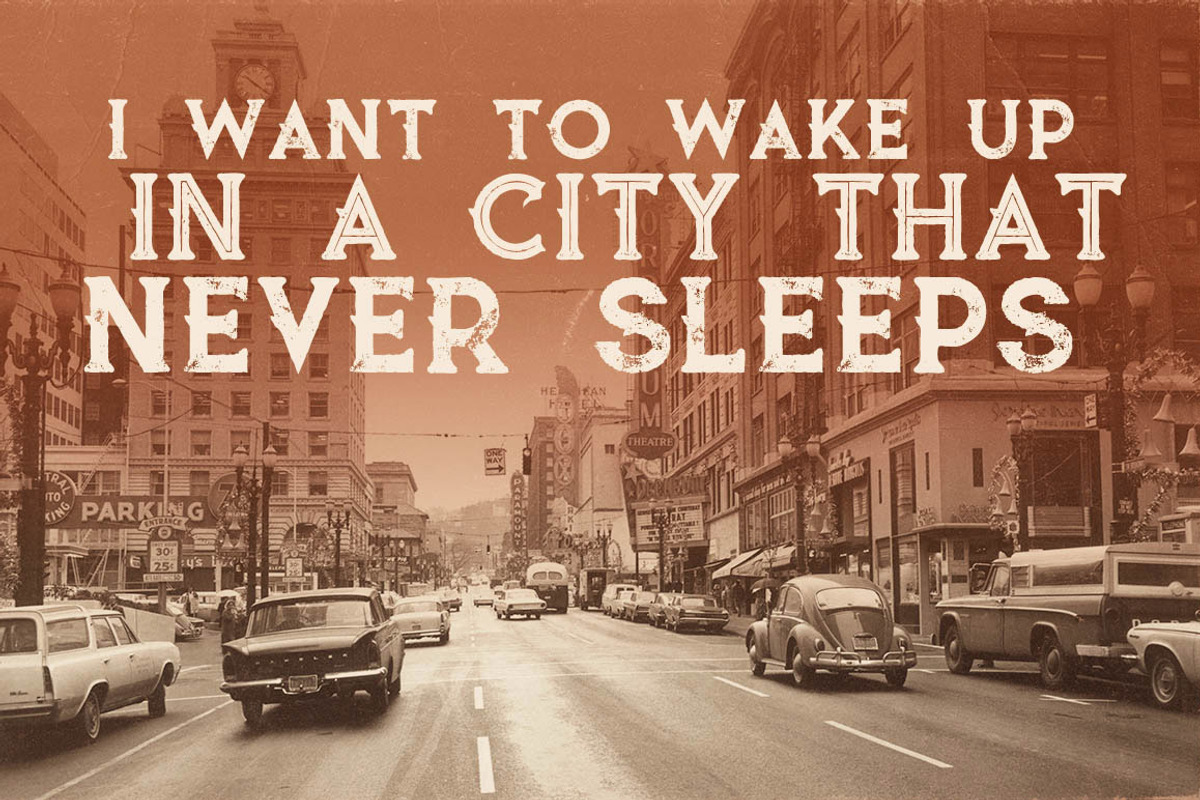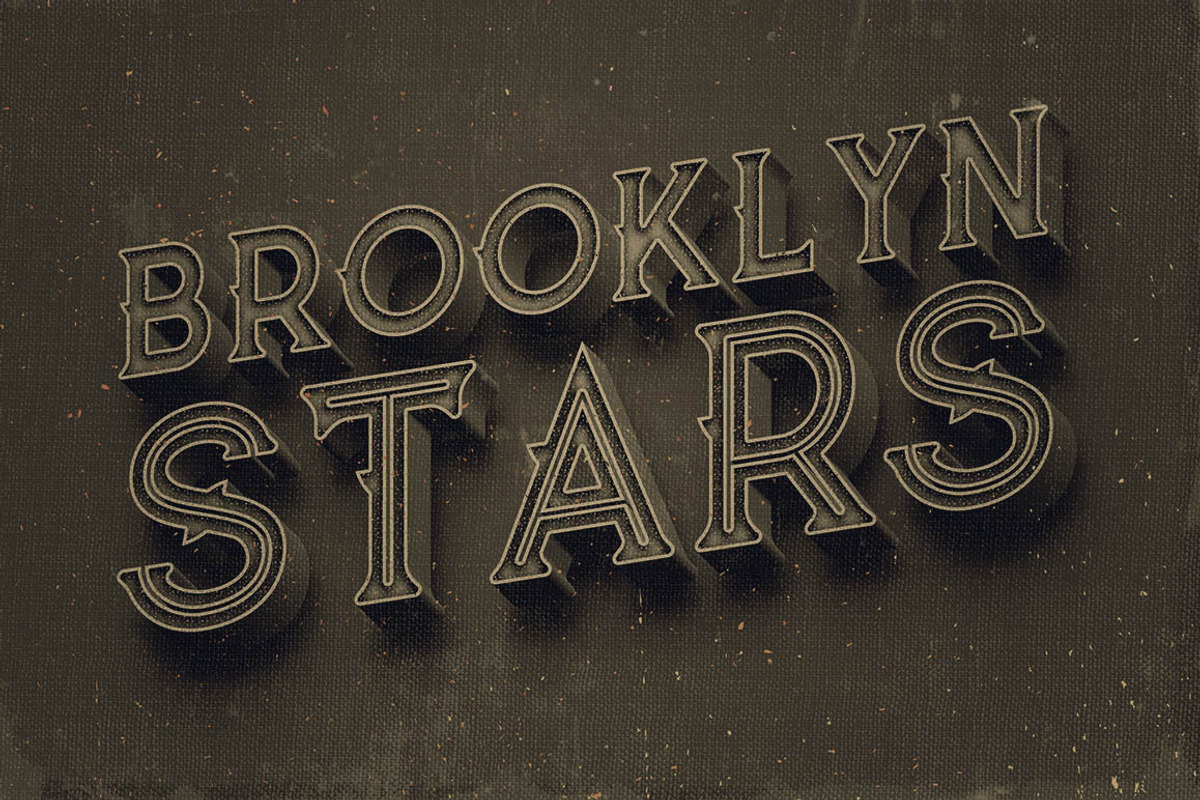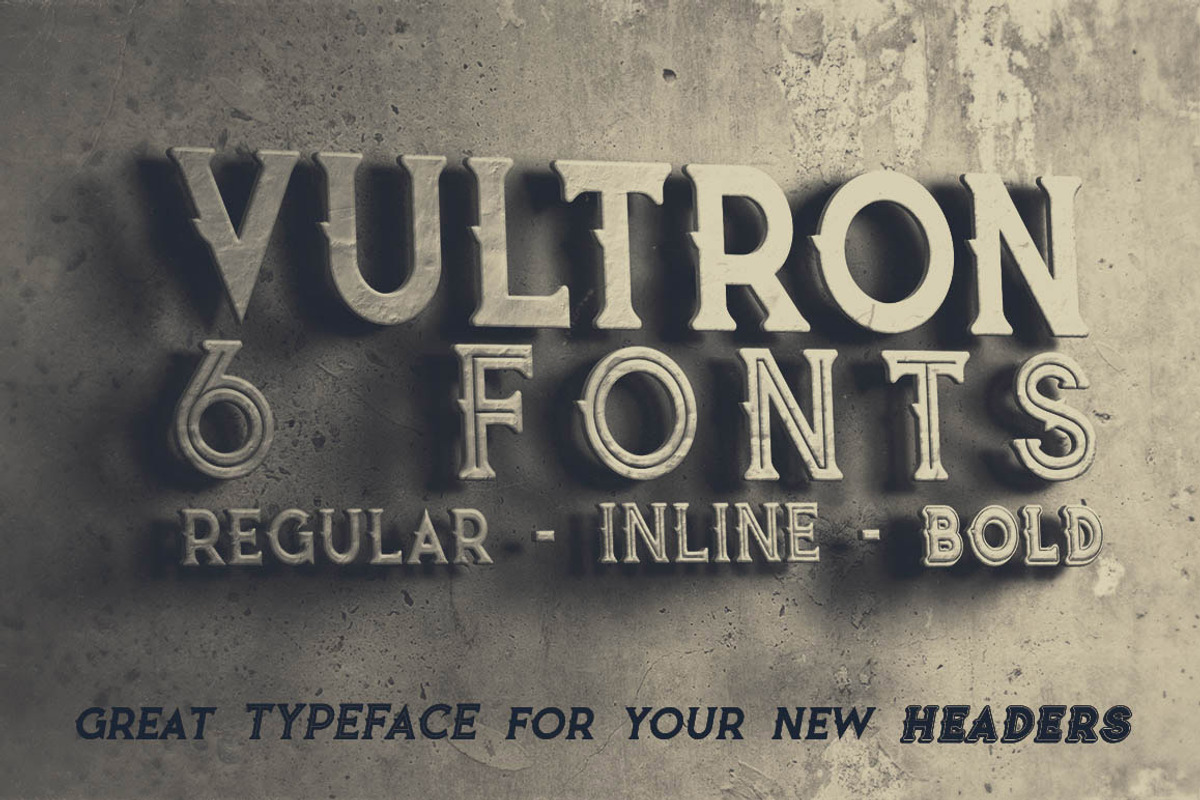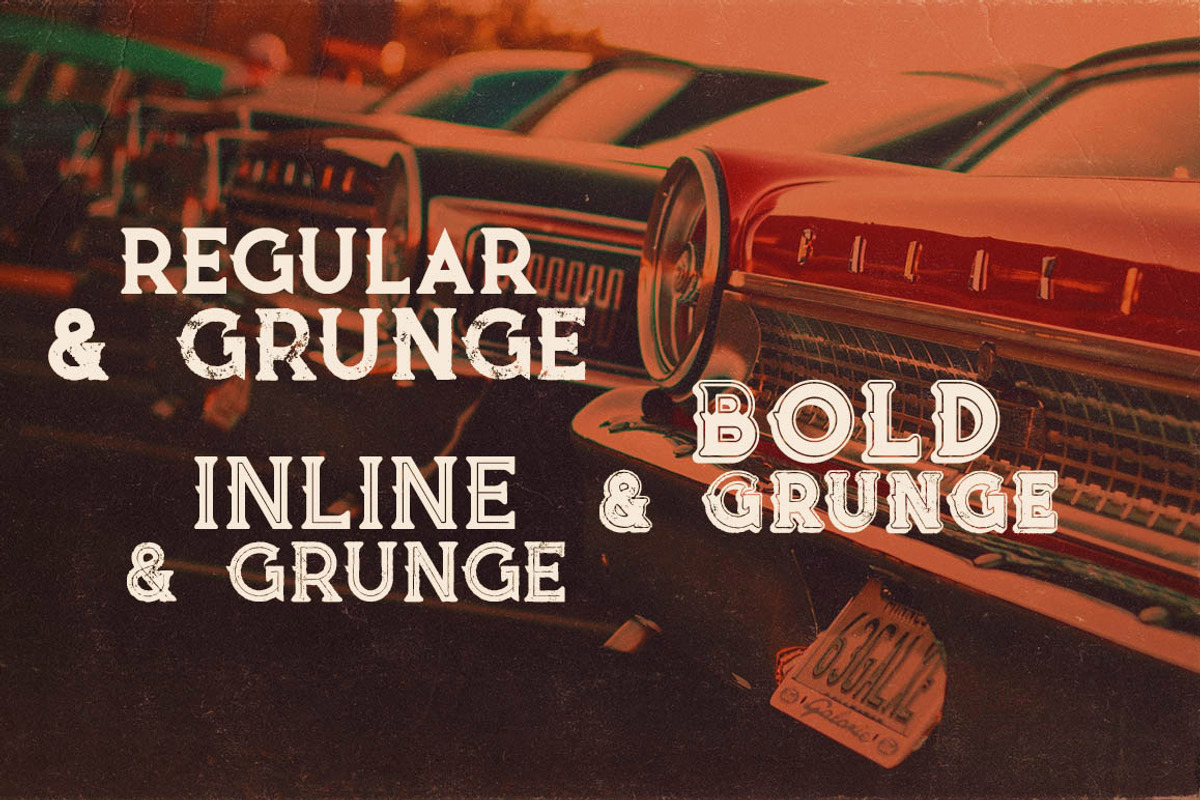
Vultron - Vintage Style Font
Vultron - Vintage Style Font by JumboDesign is a font selected for branding, posters, packaging, typography.
Why Vultron - Vintage Style Font is worth a look
Vultron - Vintage Style Font by JumboDesign fits naturally into Branding, posters, packaging, typography.